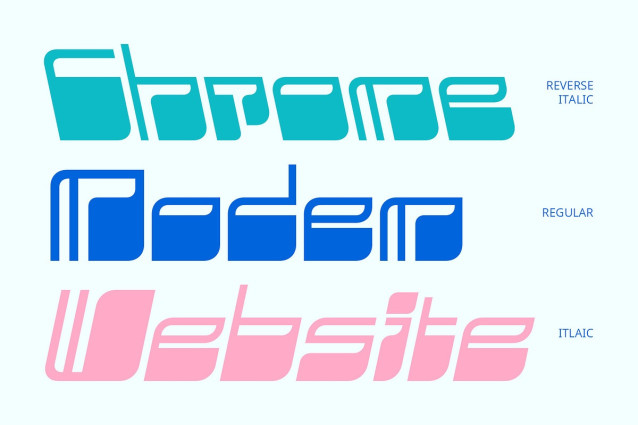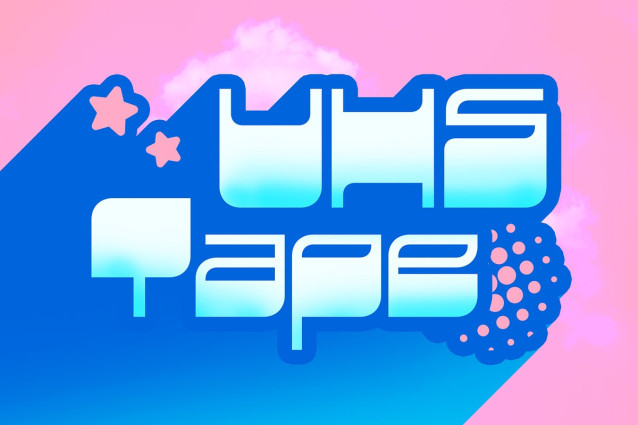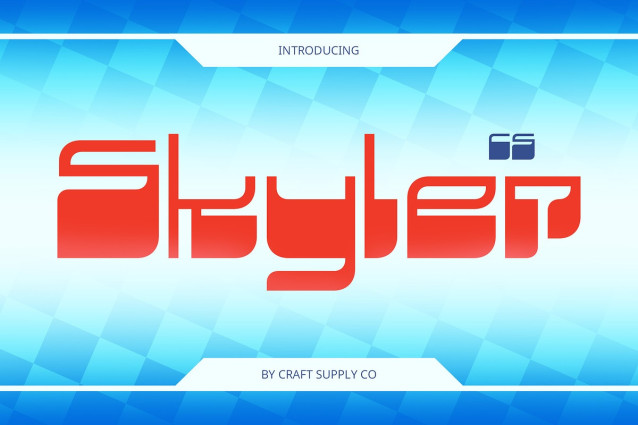
CS Skyler Font
CS Skyler Font is a striking display sans serif font featuring a distinctive reverse contrast design, where the horizontal strokes are thicker than the vertical ones. This unexpected inversion creates a unique, dynamic visual rhythm that instantly captures attention and sets your design apart.
Y2K and Retro Funky Vibes Drawing inspiration from the bold, colorful aesthetics of the early 2000s, CS Skyler masterfully blends Y2K, retro, and funky elements. Its playful, exaggerated proportions and rounded forms channel the energetic spirit of digital pop culture, giving your projects a vibrant, nostalgic edge.
Perfect for Standout Creative Projects This font shines in music posters, creative branding, album covers, and digital art that aim to evoke the fun, expressive mood of the 2000s era. Its bold personality makes it ideal for designs that need to be both memorable and visually impactful, capturing youthful energy with style.
Unique Visual Impact for Modern Use With its unconventional stroke contrast and retro-inspired charm, CS Skyler offers a fresh take on classic sans serif fonts, perfectly balancing vintage cool with contemporary usability. Whether for edgy fashion campaigns, urban event promotions, or digital media, this font empowers designers to push creative boundaries and make a strong, lasting impression.